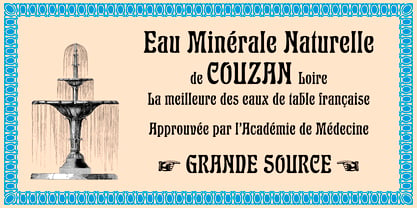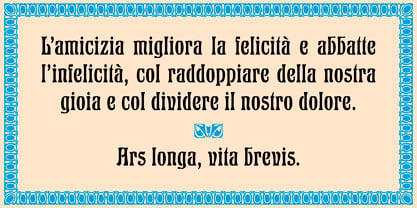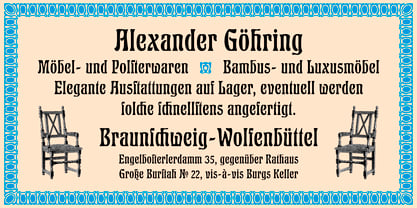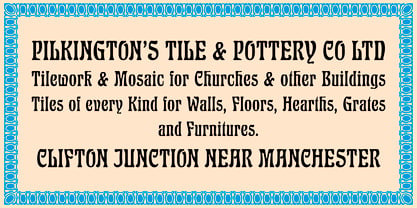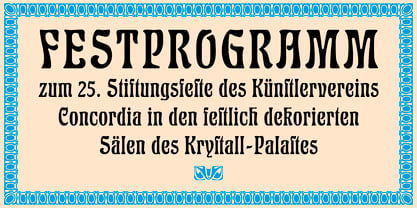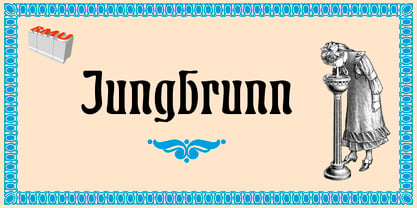
Jungbrunn™
von RMU
Die Schriftfamilie Jungbrunn wurde von Ralph M. Unger entworfen und von RMU veröffentlicht. Jungbrunn enthält 1 Stile. Mehr über diese Familie
Inspired by the Roos & Junge font Triumph, Jungbrunn was completely redrawn und redesigned for modern use. This font contains the long s and several discretionary ligatures. That's why it is recommended to activate the OT feature discretionary ligatures. The long s can be reached by either typing the integral sign or by turning the round s into the long s using OT feature historial forms.
Designer: Ralph M. Unger
Foundry: RMU